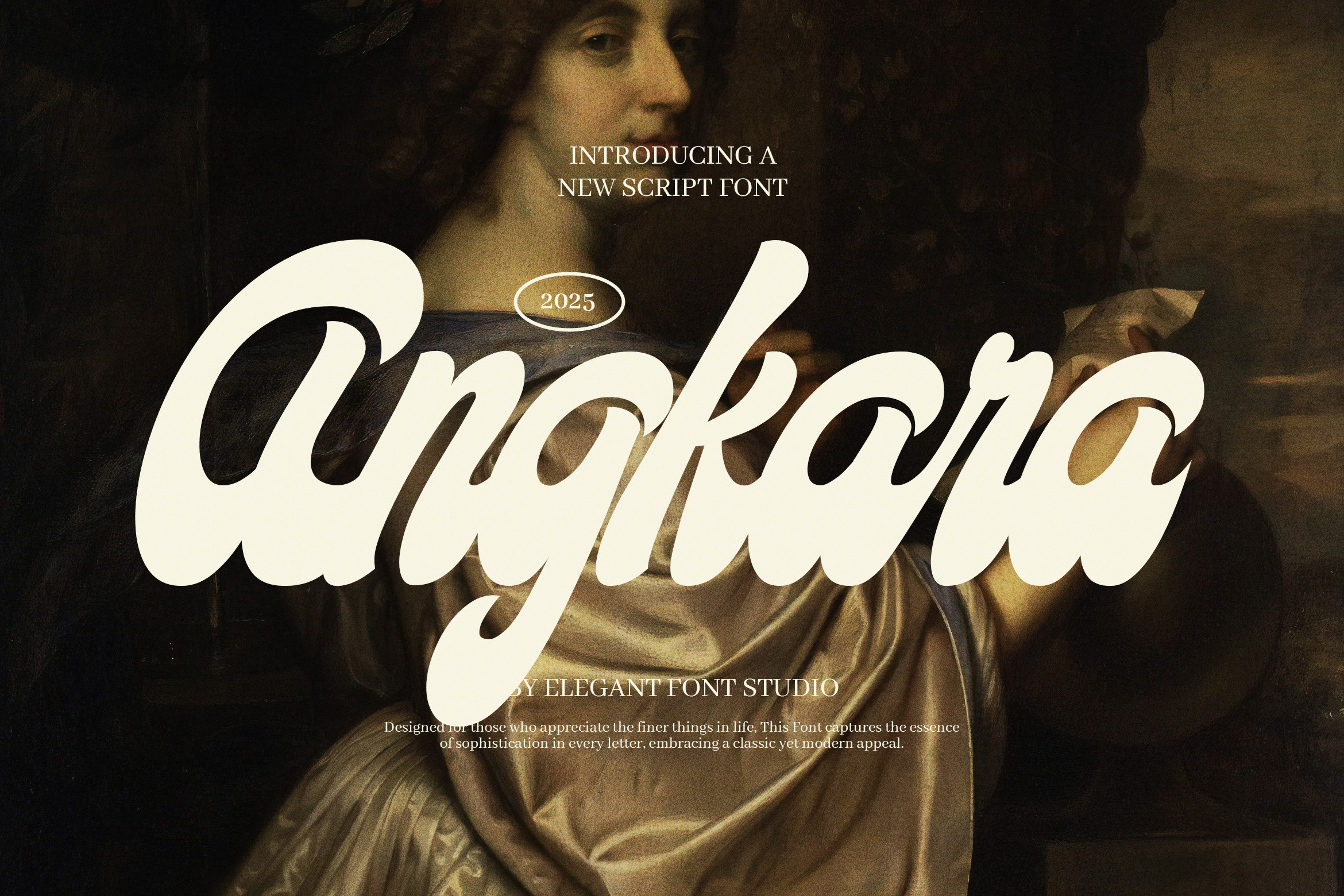
Angkara Bold Script Font
Angkara Bold Script Font is a bold, elegant, and charismatic script typeface that combines vintage charm with modern calligraphy flair. Designed to make a strong visual impact while maintaining graceful curves, this font offers a unique blend of strength and style—perfect for creatives seeking a script that’s both classy and confident.
With its bold strokes and fluid calligraphic flow, Angkara stands out in any design, from luxurious branding projects to eye-catching logo designs. The font includes a wide variety of alternates and stylistic ligatures, giving you the flexibility to create personalized, custom-lettered looks that feel hand-drawn and unique. Whether you're working on wedding invitations, vintage posters, music covers, or editorial layouts, Angkara adapts effortlessly to elevate the tone and visual presence of your work.
What makes Angkara truly shine is its balance of artistic detail and commanding presence. The bold calligraphy style brings an expressive energy that’s perfect for vintage branding, fashion-forward labels, advertising, and boutique packaging. Each letter is thoughtfully designed to ensure fluid readability while maintaining that handcrafted, dynamic feel.
Whether you're designing for a brand, building your social media presence, or curating a timeless event, Angkara Bold Script Font adds the perfect touch of elegance with attitude. It’s not just a font—it’s a statement.